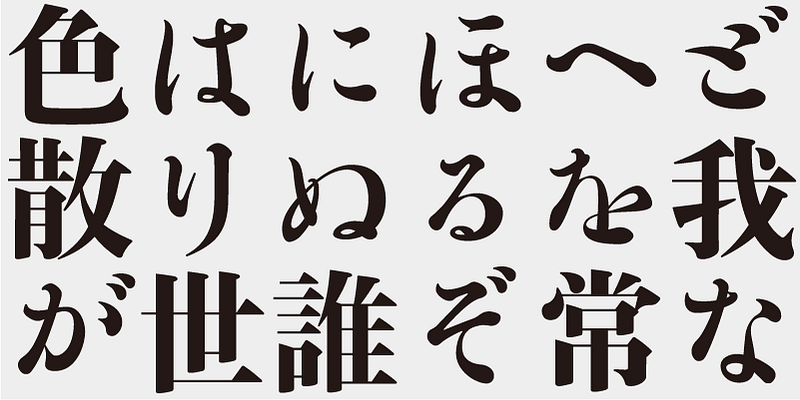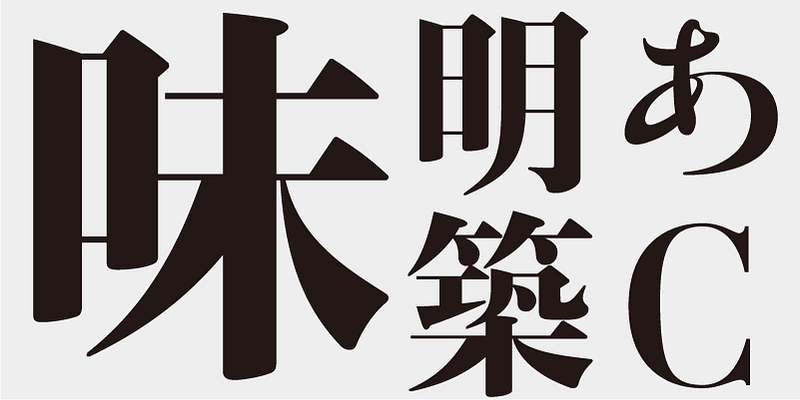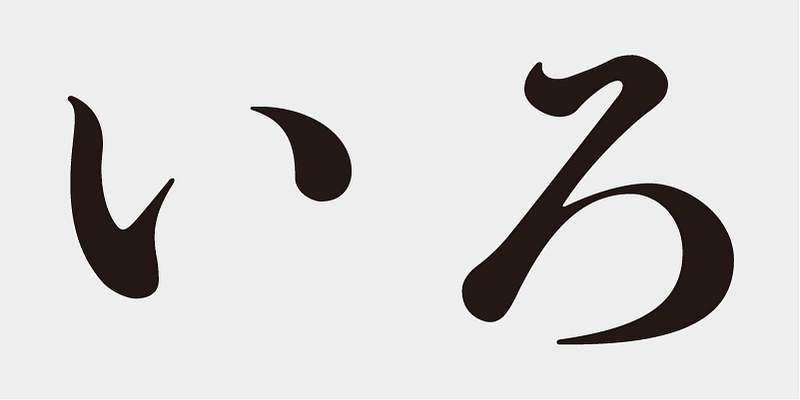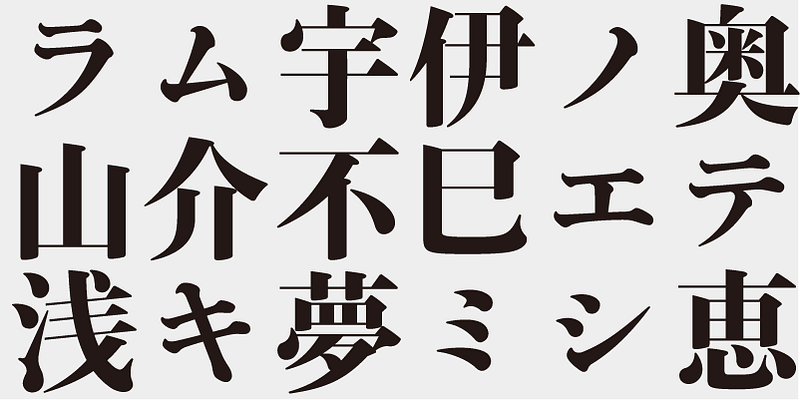
Although Ajimin has the flavor of hot metal type, it is not intended to be a revival, but a new typeface for display purposes. Like Bodoni, its vertical strokes are clear and heavy and its horizontal strokes are precise and thin. Its elements possess strength and stability.
Ajimin Modern’s elements are more sharply designed than those of Ajimin – the start and finish of vertical strokes are lowered for increased sharpness, and the horizontal strokes are cut vertically at the start and are thinner with a uniform width. Ajimin Modern is a sharp and elegant Mincho-style typeface.
This typeface is designed to be used in larger type sizes (for posters, for example), although it’s legible in smaller sizes. As the type size increases, the elegance of each stroke element becomes more visible.
The Tokyo Branch of the Nagasaki Shinjuku type foundry (later The Tokyo Tsukiji Type Foundry) was founded in 1873, and it produced the “Tsukiji-tai” style typeface that same year. This typeface is one of the two main sources of Japanese typeface design (the other is the “Shuei-tai” style).
The Tokyo Tsukiji Type Foundry no longer exists, but the typeface they produced still influences today’s typeface design and many revivals of this typeface style have been made. This font uses two typical kana character structures, one of which is based on Ajimin Modern Chiku C/EB. This structure is found in older Tsukuji-tai fonts, and I used work printed in such fonts as a reference material. The character “C” in the font name stands for “Classic”.
Ajimin has the flavor of hot metal type and, like Bodoni, its vertical strokes are clear and heavy and its horizontal strokes are precise and thin. Its elements possess strength and stability. Ajimin is a unique Mincho-style display typeface. Ajimin Modern’s elements are more sharply designed, but that sharpness is balanced by the richness and elegance of the design. Ajimin’s biggest feature is its 10 kana variations, ranging from running-hand-like designs, to revivals of designs from the age of hot metal type, to modern style kana. These variations make Ajimin useful for a wide range of purposes.